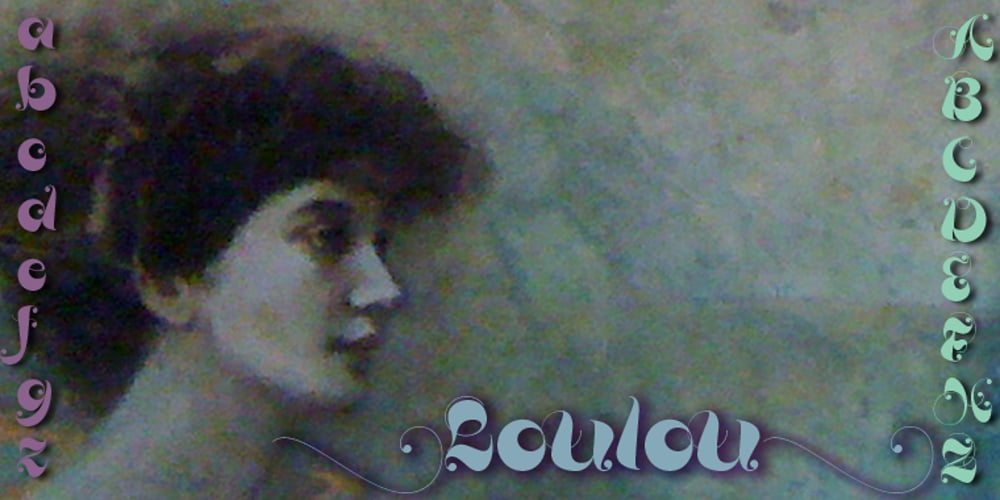
Loulou
Loulou font
Loulou Font Family was designed by Gert Wiescher and published by Wiescher Design. Loulou contains 1 styles and family package options. LouLou is a scriptlike typeface that looks as if it came right out of the sixties and seventies. Flowerpower! I enjoyed doing this one. Your swinging type designer Gert Wiescher